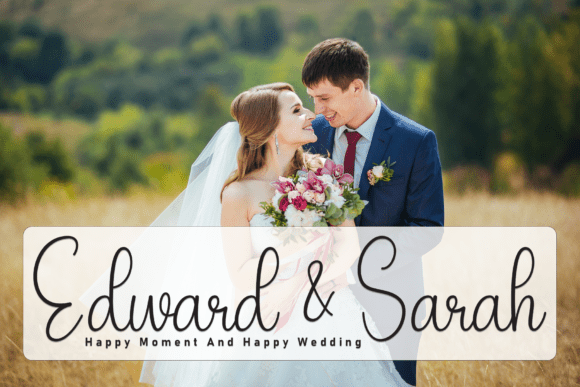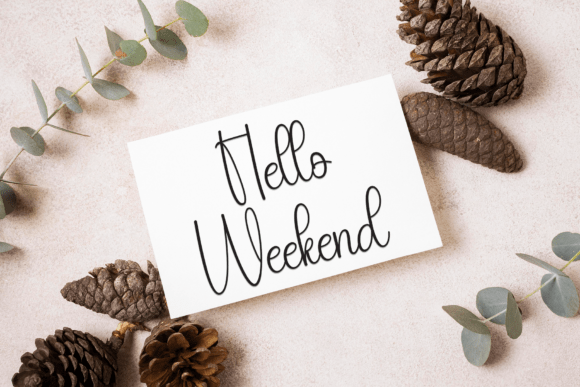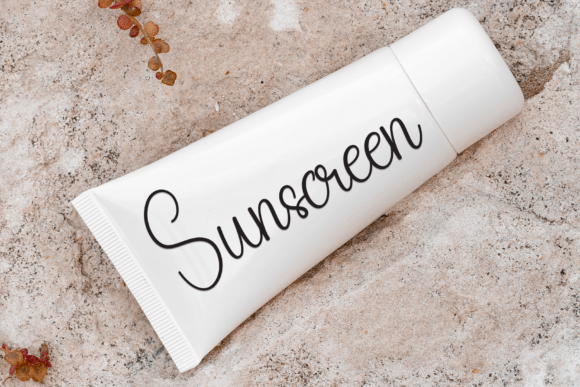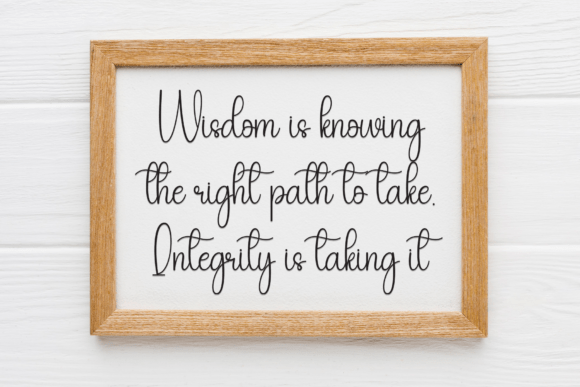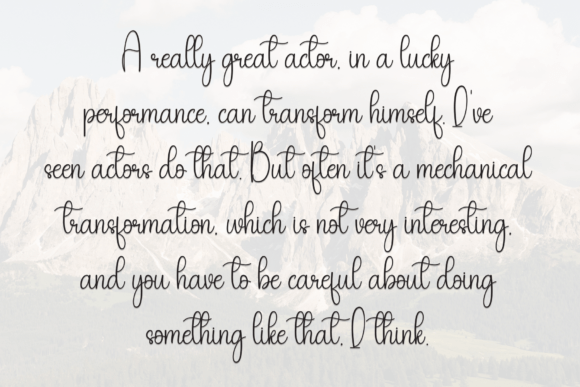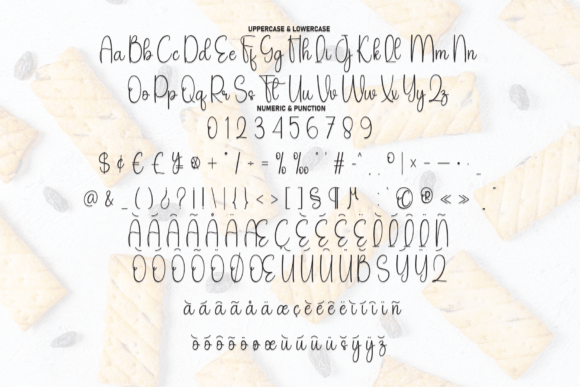
Biscuit Font: Elevate Your Designs with Elegance and Playfulness
In the world of typography, fonts play a crucial role in conveying the tone and personality of a design. For those seeking a stylish and charming script font, Biscuit is an excellent choice. This beautiful handwritten script font is designed to capture elegance and playfulness in every stroke, making it perfect for a variety of creative projects.
The Characteristics of Biscuit Font
Biscuit font is characterized by its flowing curves and natural rhythm, which give it a personal and charming touch. The font’s graceful design brings warmth, sophistication, and creativity to any project, making it an excellent choice for designers and crafters. Whether you’re working on invitations, branding, or social media, Biscuit font is sure to elevate your designs and make them stand out.
Perfect for Invitations and Branding
Biscuit font is particularly well-suited for invitations, such as wedding invites, birthday parties, and baby showers. Its elegant and playful design adds a touch of sophistication and whimsy, making it perfect for special occasions. Additionally, the font’s unique character makes it an excellent choice for branding, allowing businesses to establish a distinctive and memorable identity.
Enhance Your Social Media with Biscuit Font
In today’s digital age, social media is an essential platform for businesses, designers, and crafters to showcase their work. Biscuit font can help you create engaging and visually appealing social media content, such as quotes, promotions, and announcements. Its playful and elegant design is sure to capture the attention of your audience and leave a lasting impression.
Why Choose Biscuit Font?
So, why choose Biscuit font over other script fonts? Here are a few reasons:
- Elegance and Playfulness: Biscuit font strikes the perfect balance between elegance and playfulness, making it versatile and suitable for a wide range of projects.
- Unique Character: The font’s unique character and flowing curves give it a personal and charming touch, setting it apart from other script fonts.
- Easy to Read: Despite its elegant and cursive design, Biscuit font is easy to read, making it perfect for body text and captions.
- Customizable: Biscuit font can be customized to fit your project’s specific needs, allowing you to adjust the size, color, and style to suit your design.
Tips for Using Biscuit Font
To get the most out of Biscuit font, here are a few tips:
- Pair with a Sans-Serif Font: Pair Biscuit font with a sans-serif font to create a beautiful contrast and add visual interest to your design.
- Use for Headings and Titles: Use Biscuit font for headings and titles to add a touch of elegance and sophistication to your design.
- Experiment with Colors: Experiment with different colors to find the perfect match for your design and brand.
In conclusion, Biscuit font is a stylish and charming script font that can elevate your designs and add a personal touch. Its elegant and playful design makes it perfect for invitations, branding, and social media, while its unique character and flowing curves give it a distinctive and memorable look. Whether you’re a designer, crafter, or business owner, Biscuit font is an excellent choice for any creative project.
Get Creative with Biscuit Font